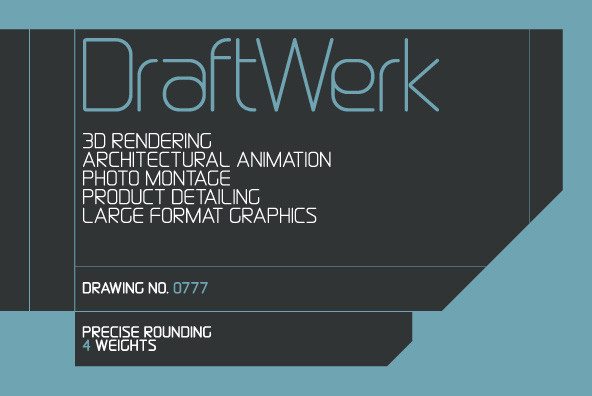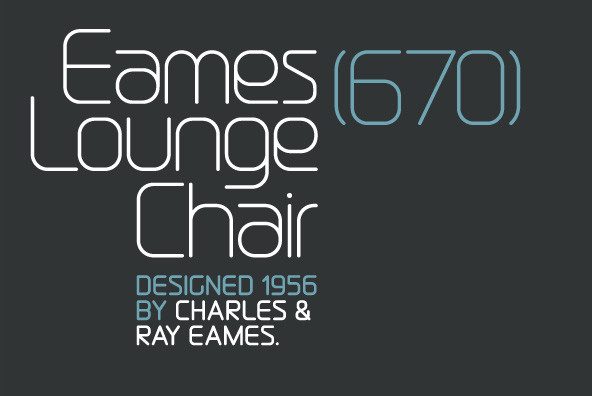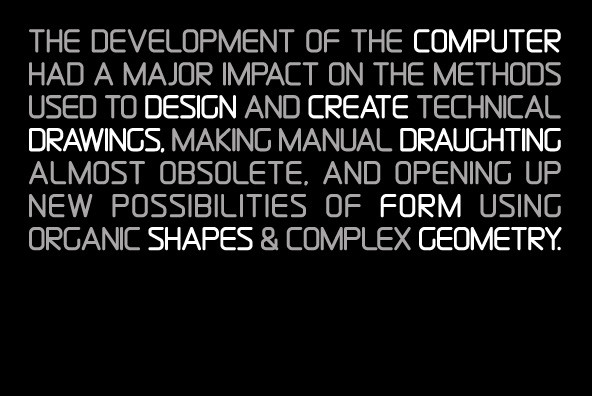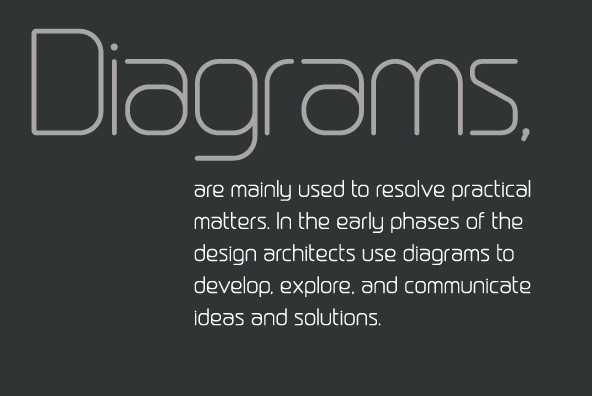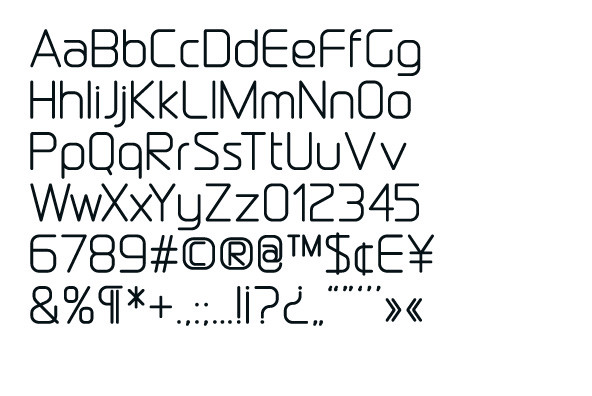
A minimal rounded typeface inspired by architecture and furniture detail drawings. The idea was to develop a font that would showcase precise radius corners at large formats and would also downsize to produce stylish body text. Details include 4 weights, a complete character set, manually edited kerning and Euro symbol.